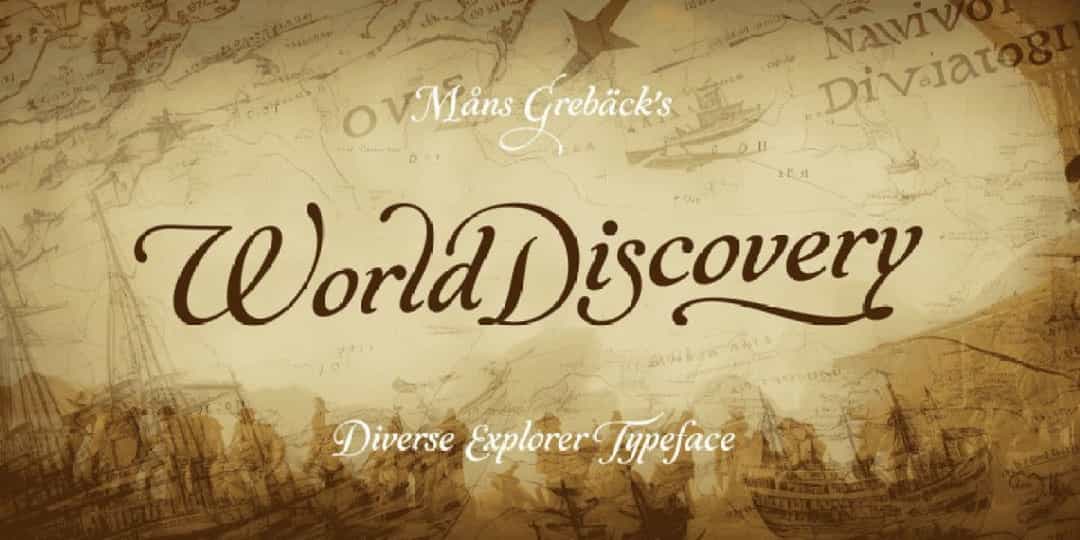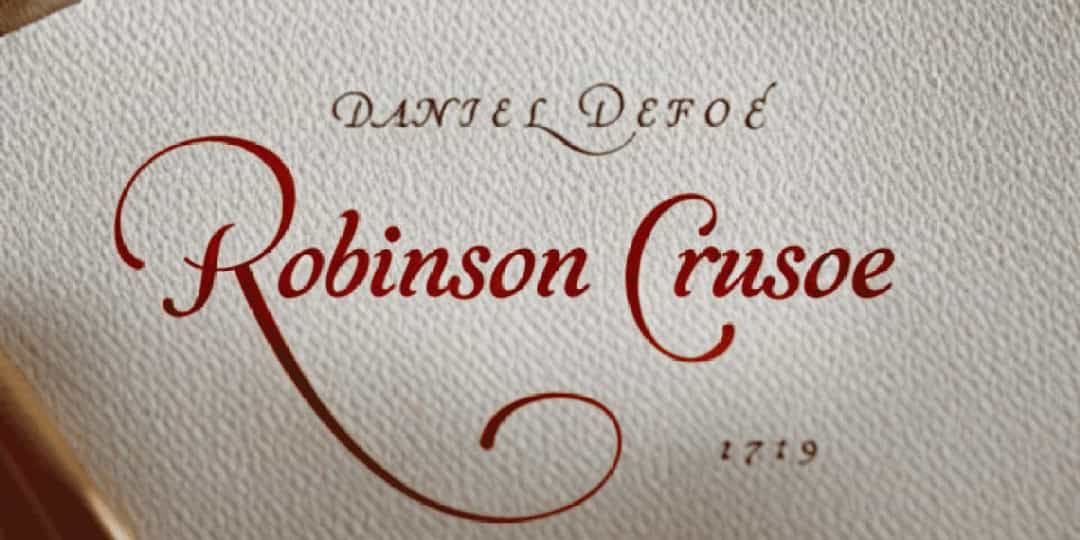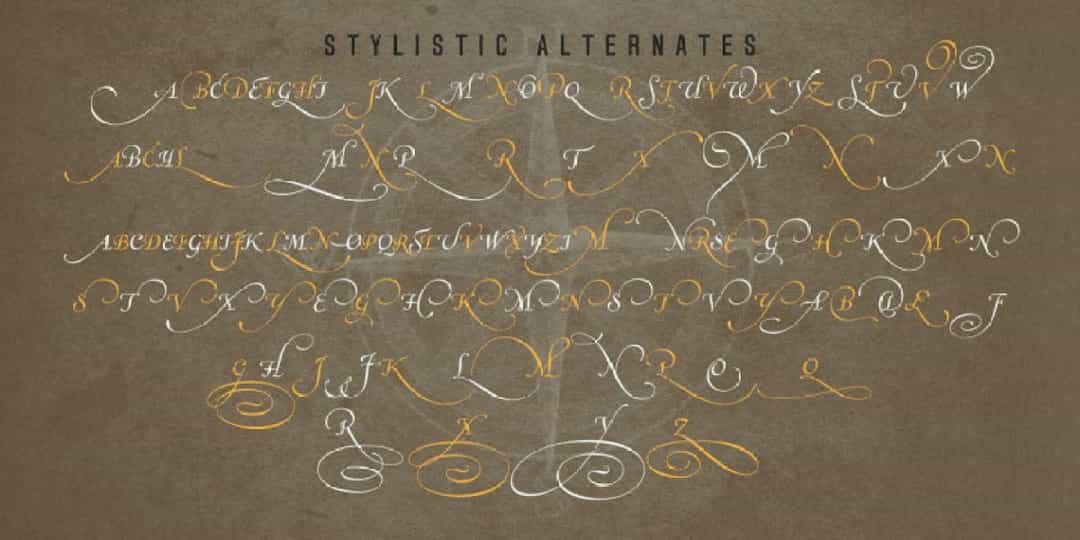
World Discovery is an exquisite calligraphy font that exudes romance, beauty and adventure. Featuring exquisite spirals, slanted serifs and swirls that come together beautifully for an elegant vintage-looking typoface design that makes World Discovery truly original and high-end typeface.